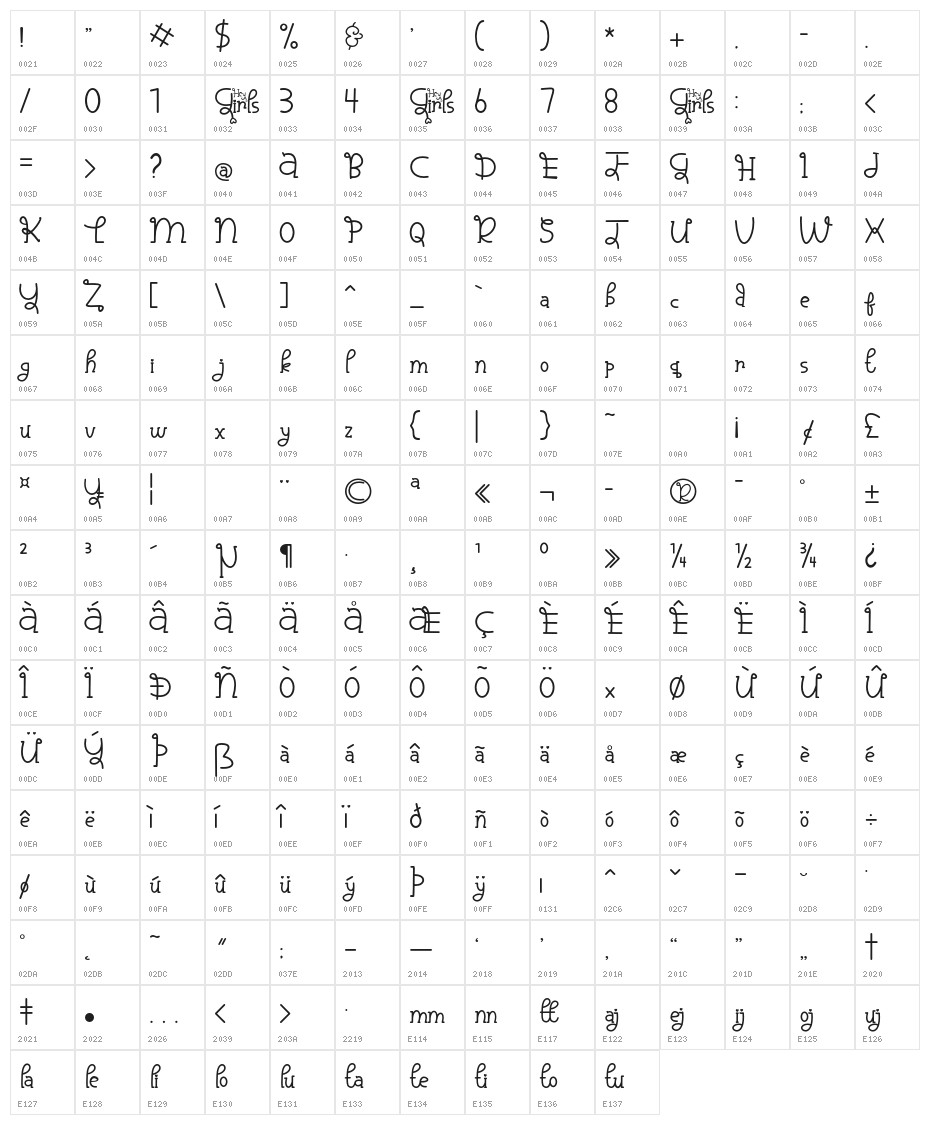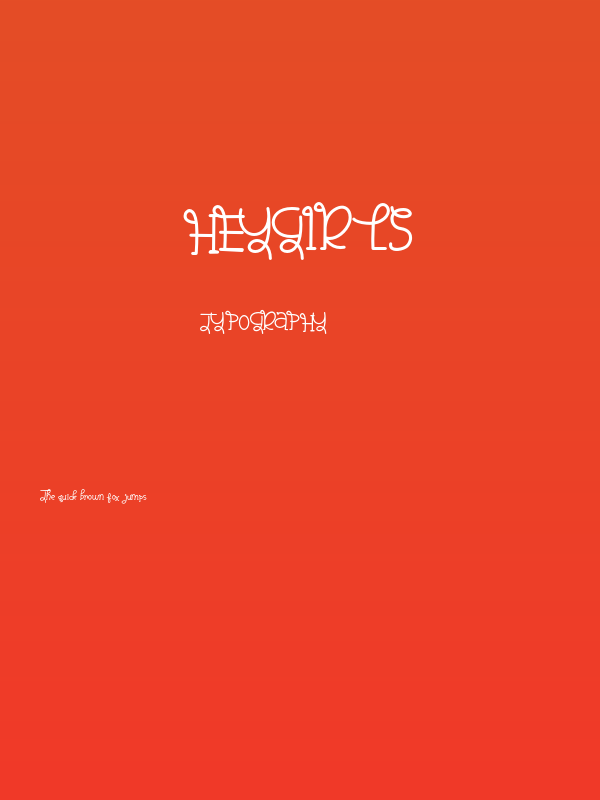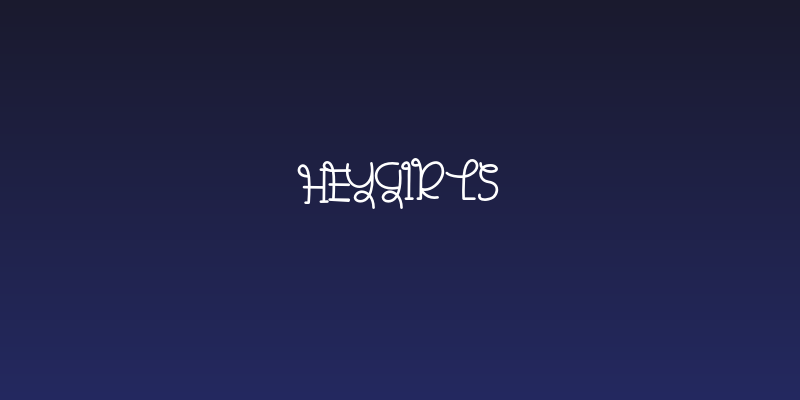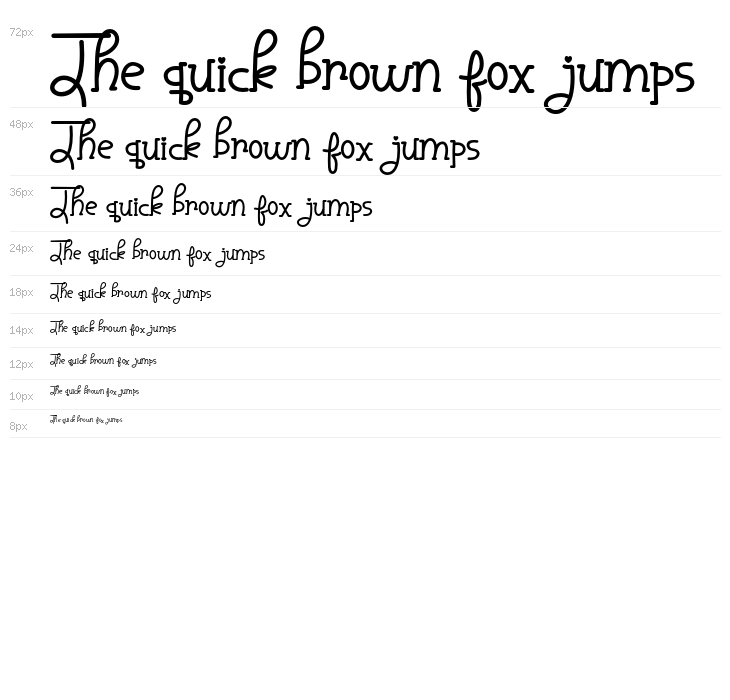
HeyGirls Font
HeyGirls Description
This playful and whimsical font features a unique, hand-drawn style with a touch of elegance. The characters are crafted with a combination of loops and curves, giving it a lively and dynamic appearance. The uppercase letters are bold and prominent, while the lowercase letters maintain a consistent flow with slightly exaggerated ascenders and descenders. Numbers and special characters follow the same playful design, making them stand out. The font's overall look is both artistic and approachable, making it suitable for creative projects.
| Proposed Projects | Ideal for children's books, greeting cards, playful branding, and creative posters. |